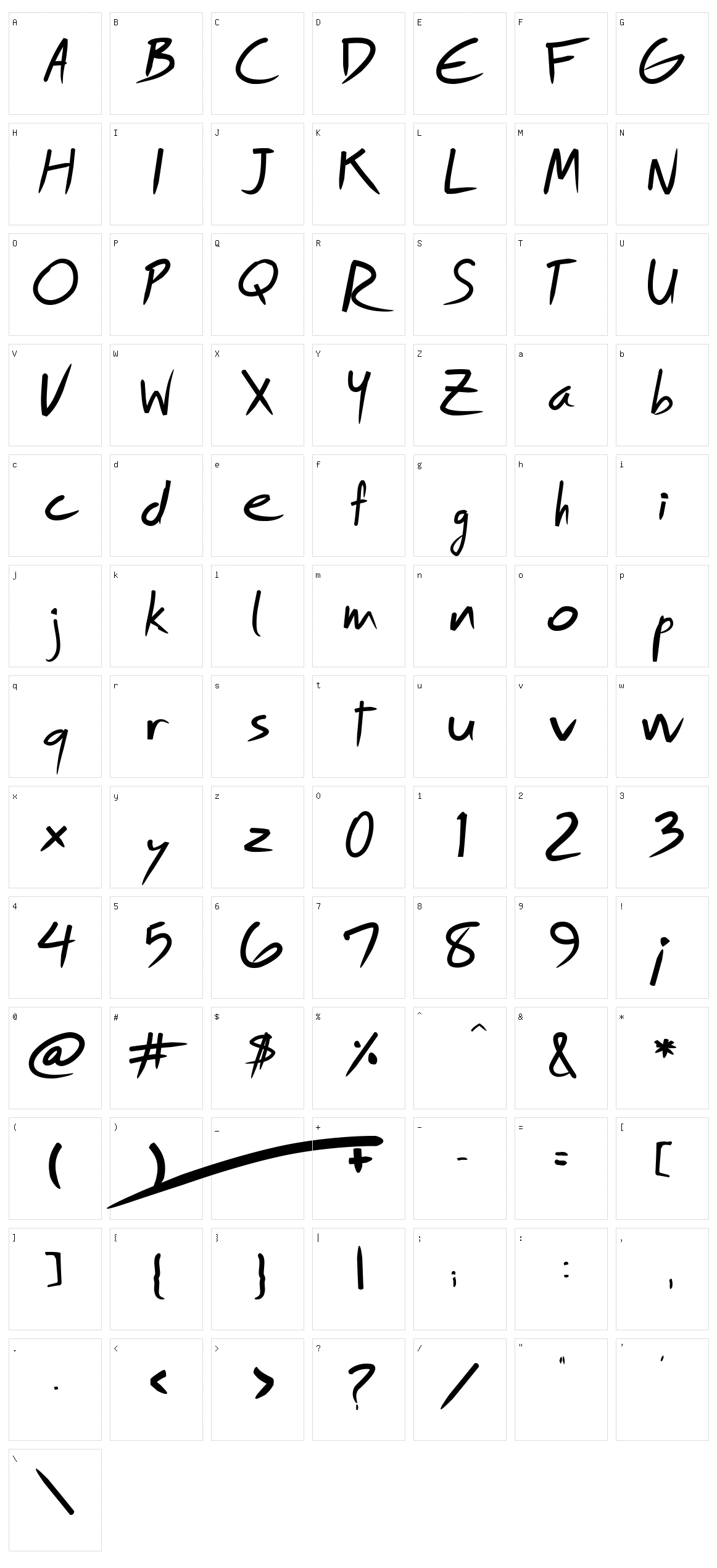
The free font Royfont is carefully designed by Roy Carvajal, showcasing a thoughtful balance of creativity and usability and falls under the Script font style. When you download the ZIP file, it contains only 22.83 KB of font files, making it lightweight and quick to download. Please review the license details below to understand permitted usage and distribution rights. If license information is not available, we recommend using this font for personal projects only or contacting the author directly for commercial usage permissions.